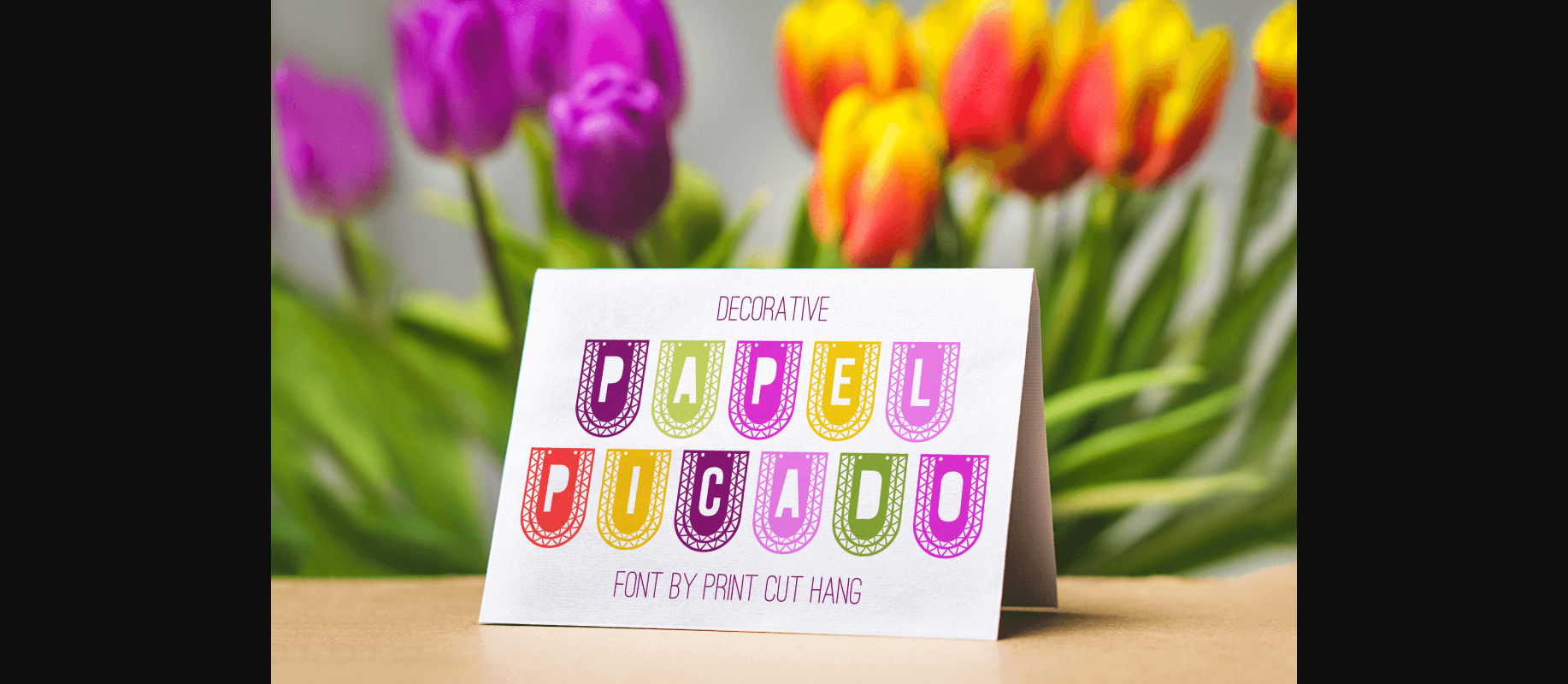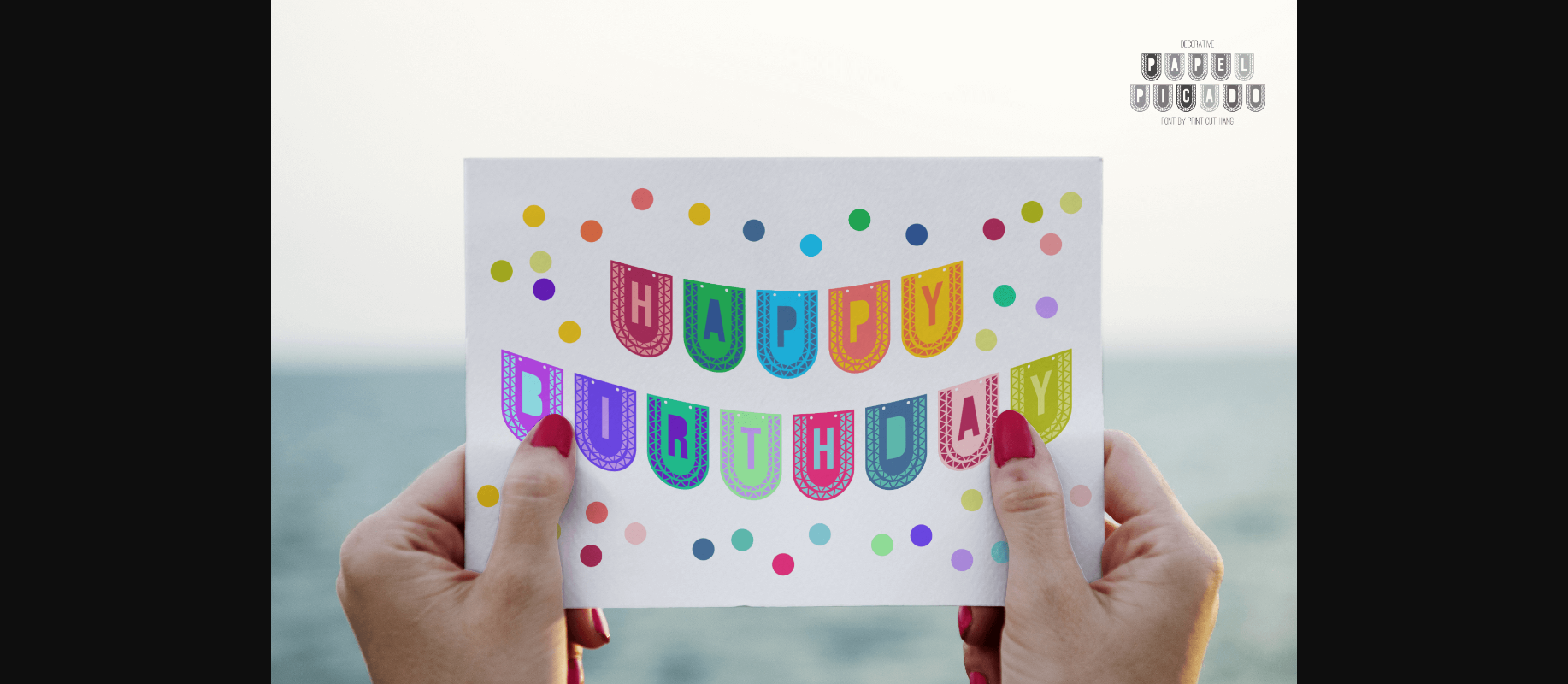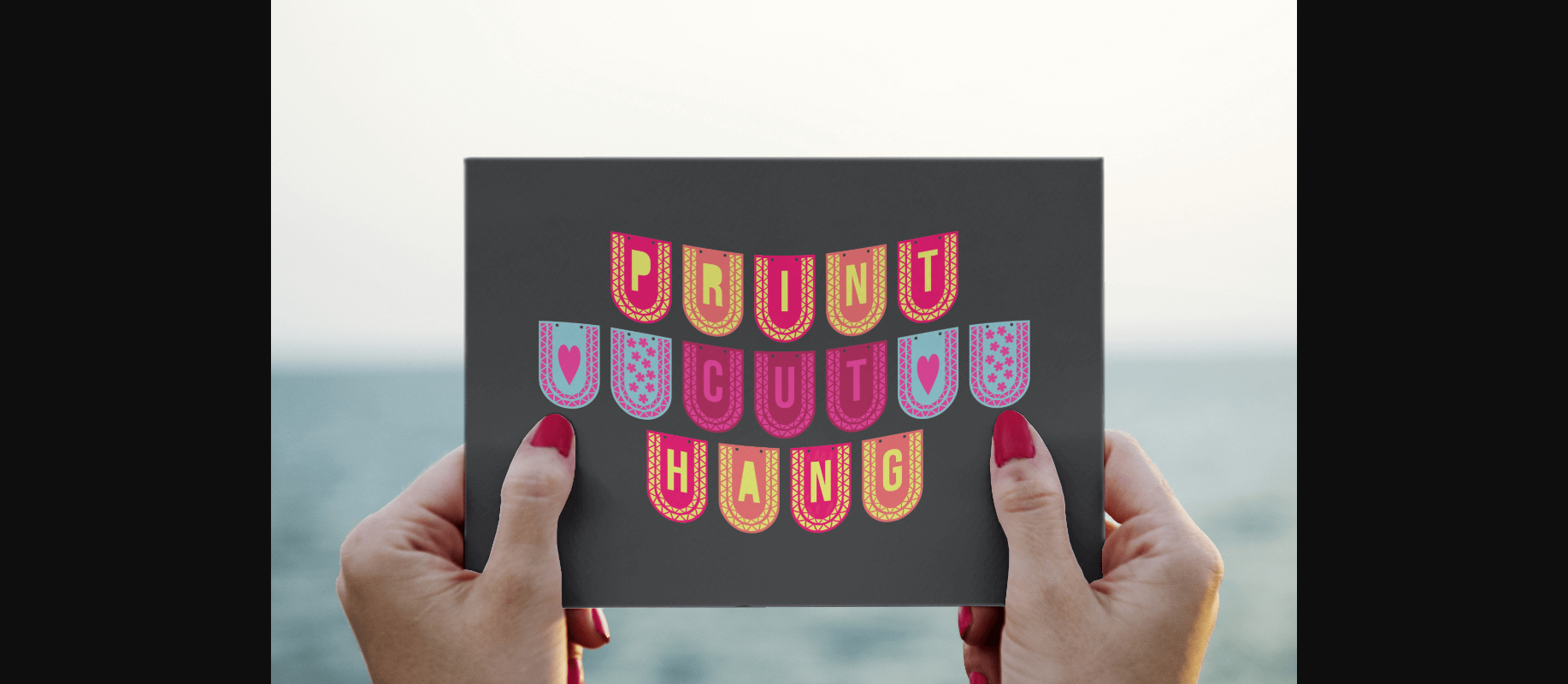
Papel Picado Font
About Papel Picado Font
Papel Picado is an amazing decorative font. it’s the perfect font for all your greeting cards and invitations. Take your projects to the next level with this Papel Picado!